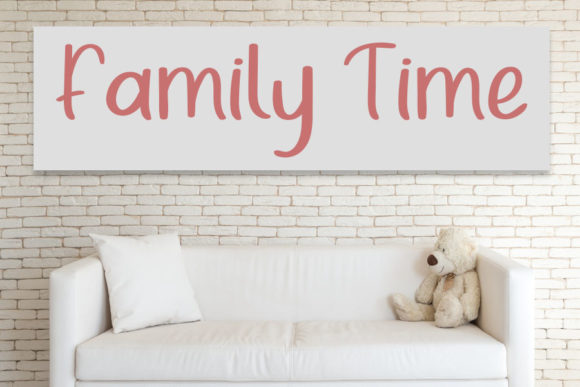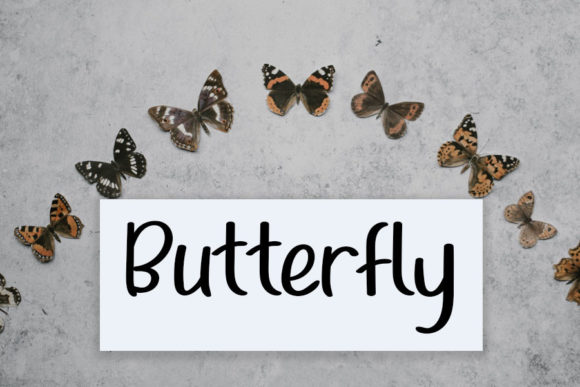
Joyful Day Font
db-ku.com - Script & Handwritten -- Joyful Day is a playful and neat handwritten font. Simple, relaxed and adaptable, this font will instantly make your creation more appealing than any others.